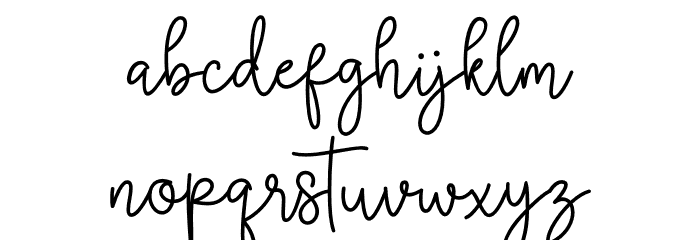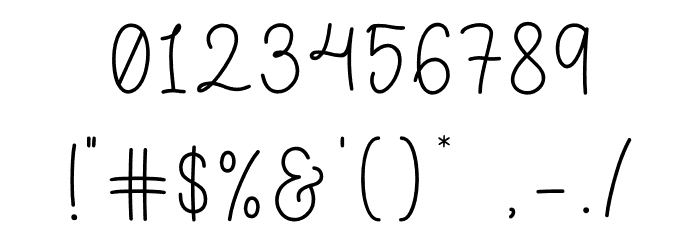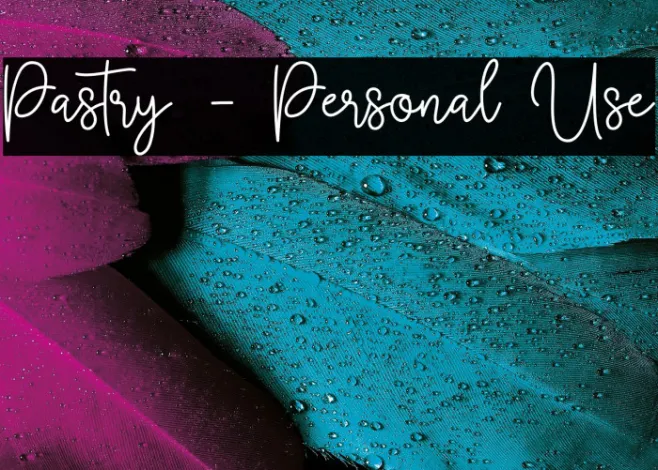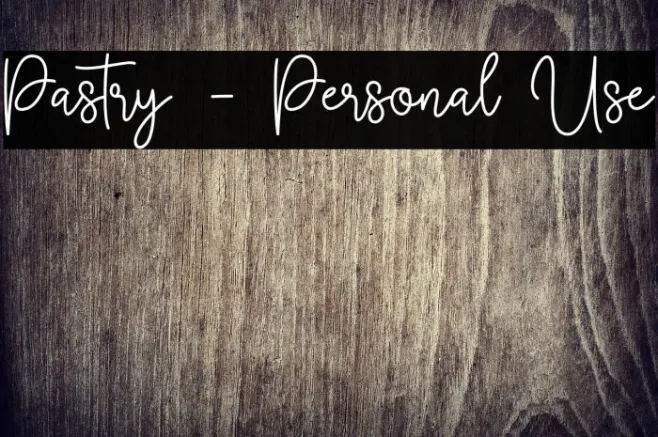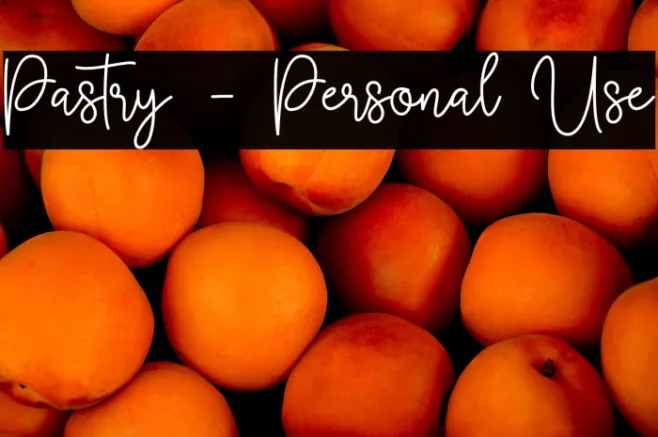
Pastry - Personal Use Font
This font features a playful and elegant handwritten style, characterized by its flowing, cursive letters. The uppercase letters are tall and slender, with a whimsical flair that adds a touch of sophistication. The lowercase letters maintain a consistent flow, with smooth curves and loops that enhance readability while preserving the artistic essence. Numbers and special characters are crafted with the same attention to detail, ensuring a cohesive look across all text. The overall design is light and airy, making it suitable for projects that require a personal and inviting touch.
A playful, elegant handwritten font with flowing cursive letters.
- Proposed Projects: Ideal for wedding invitations, greeting cards, personal branding, and social media graphics.
- Use Case: Logos, Headlines, Invitations